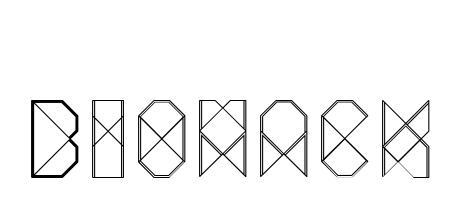
Biohack
By Ruud van den Elzen
Biohack is a geometric sans-serif typeface. Its letters are constructed from interconnected lines forming sharp angles and minimalist shapes. The design suggests precision, technology, and a futuristic aesthetic. The thin lines create a delicate yet strong visual impact. The overall style is clean, modern, and slightly edgy.